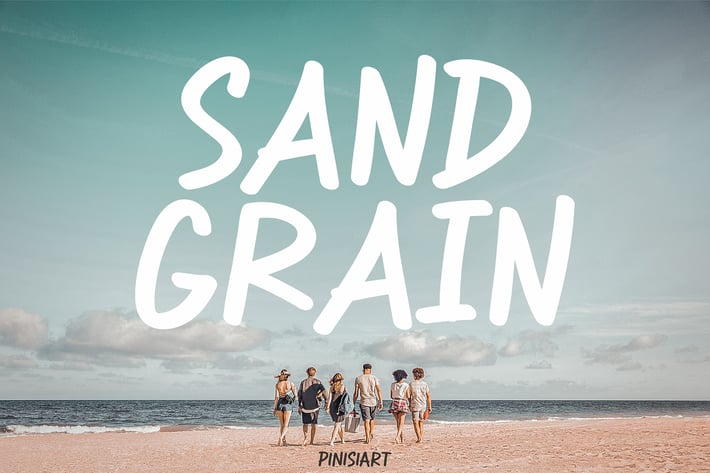
Instagram Aesthetic Font - Sand Grain
Capture the essence of summer adventures, road trips, and effortless storytelling with Sand Grain, the perfect font for influencers, travel bloggers, and brands that want to radiate warmth. Designed with a natural, hand-brushed touch, Sand Grain blends casual elegance with a carefree, sun-drenched vibe—ideal for Instagram posts, travel vlogs, beachside captions, and trendy branding. Whether you’re crafting aesthetic social media content, adventure-themed designs, or lifestyle visuals, this font adds an organic and engaging touch to every project.
Why Sand Grain?
Authentic Handwritten Feel – Organic strokes for a natural, personal touch.
Perfect for Instagram & Social Media – Designed for captions, quotes, and stylish storytelling.
Versatile for Travel & Lifestyle Brands – Fits effortlessly into boho, adventure, and influencer aesthetics.
Great for Merch & Marketing – Ideal for posters, apparel, and branding that stands out.
Sand Grain is the go-to typeface for influencers, travel bloggers, lifestyle brands, and social media creatives. It’s perfect for summer promotions, Instagram stories, outdoor gear branding, handwritten quotes, and aesthetic web designs. Whether you're crafting adventure captions, print-on-demand apparel, or trendy product packaging, this font makes every word feel like a summer breeze.